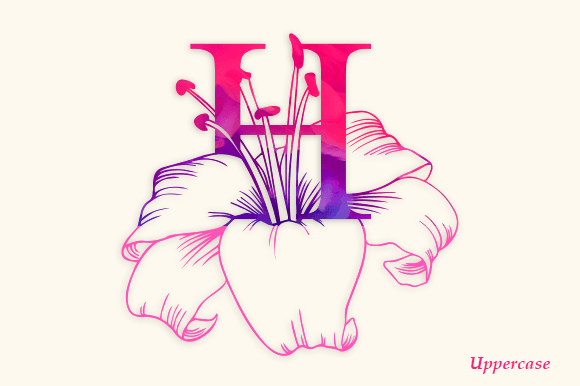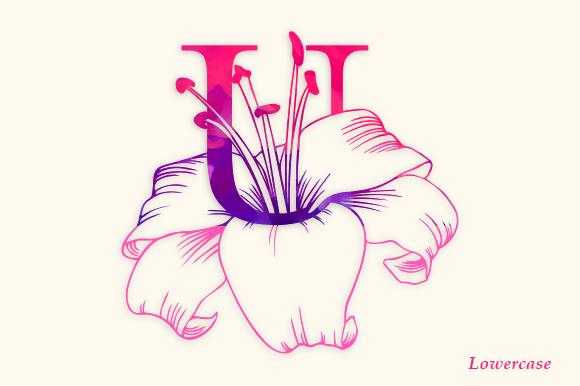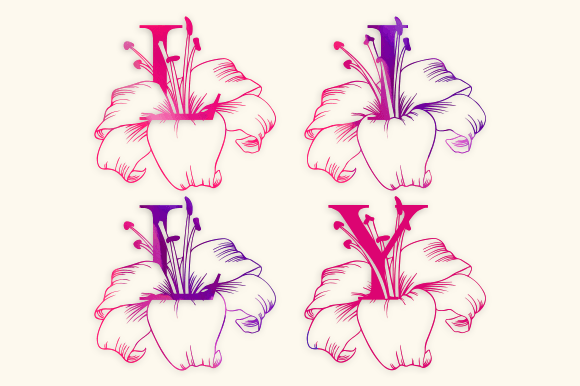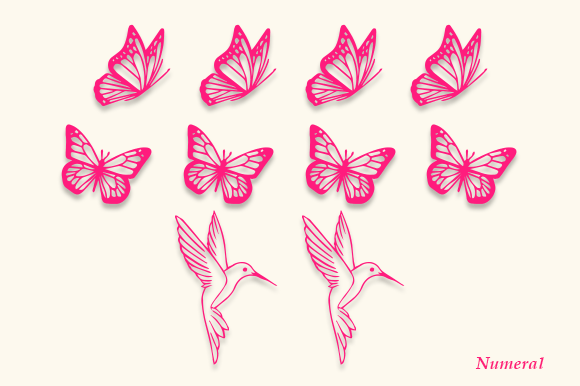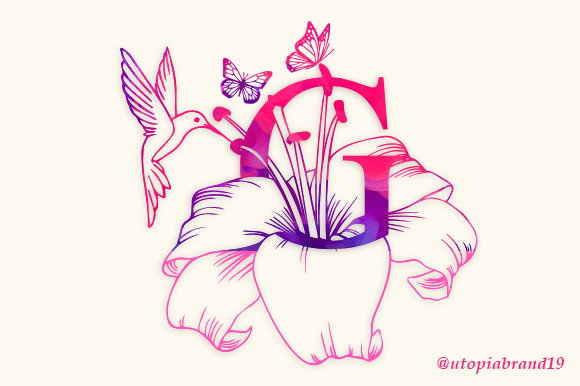
Introducing Flower Lily Monogram Font: Elevate Your Designs with Elegance
Are you a designer or crafter looking for a font that exudes elegance and sophistication? Look no further than the Flower Lily Monogram Font. This beautiful, decorative font is perfect for creating stunning wedding invitations, stationary art, social media posts, and greeting cards that will leave a lasting impression.
What is Flower Lily Monogram Font?
Flower Lily Monogram Font is an elegant decorative font that features lovely ornaments, giving it an authentic feel. The font is designed to add a touch of sophistication and luxury to any design project. Its unique and intricate details make it perfect for special occasions, such as weddings, anniversaries, and birthdays.
Key Features of Flower Lily Monogram Font
- Elegant and Decorative: The font features beautiful ornaments and intricate details, making it perfect for designs that require a touch of elegance.
- Authentic Feel: The font has an authentic feel that will transport your designs to a world of luxury and sophistication.
- Versatile: The font can be used for a variety of design projects, including wedding invitations, stationary art, social media posts, and greeting cards.
Uses of Flower Lily Monogram Font
Flower Lily Monogram Font is a versatile font that can be used for a variety of design projects. Here are some ideas to get you started:
- Wedding Invitations: Create stunning wedding invitations that will set the tone for the big day.
- Stationary Art: Design beautiful stationary art, including notecards, journals, and planners.
- Social Media Posts: Create eye-catching social media posts that will grab the attention of your followers.
- Greeting Cards: Design cute and elegant greeting cards for special occasions, such as birthdays, anniversaries, and holidays.
Tips for Using Flower Lily Monogram Font
Here are some tips for using Flower Lily Monogram Font:
- Pair with Other Fonts: Pair the font with other fonts to create a unique and interesting design.
- Use for Headings: Use the font for headings and titles to add a touch of elegance to your design.
- Pay Attention to Details: Pay attention to the details of your design, including the spacing and alignment of the text.
Why Choose Flower Lily Monogram Font?
There are many reasons why you should choose Flower Lily Monogram Font for your design projects. Here are a few:
- Unique and Elegant: The font is unique and elegant, making it perfect for special occasions.
- High-Quality: The font is high-quality and will look great in any design project.
Flower Lily Monogram Font is a beautiful and elegant decorative font that is perfect for designers and crafters. Its unique and intricate details make it perfect for special occasions, such as weddings, anniversaries, and birthdays. With its versatility, ease of use, and affordability, Flower Lily Monogram Font is a great addition to any design project.